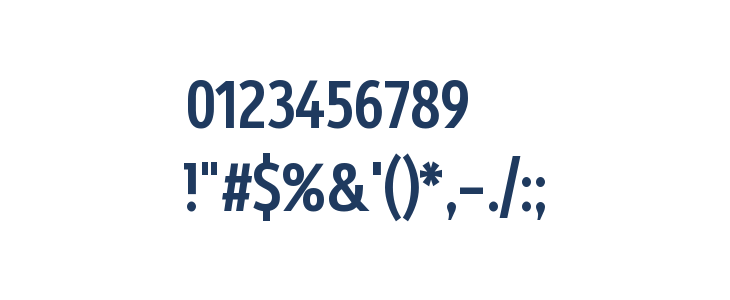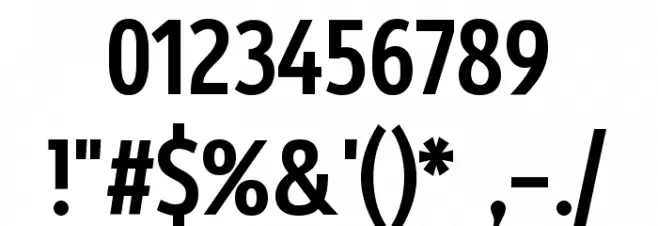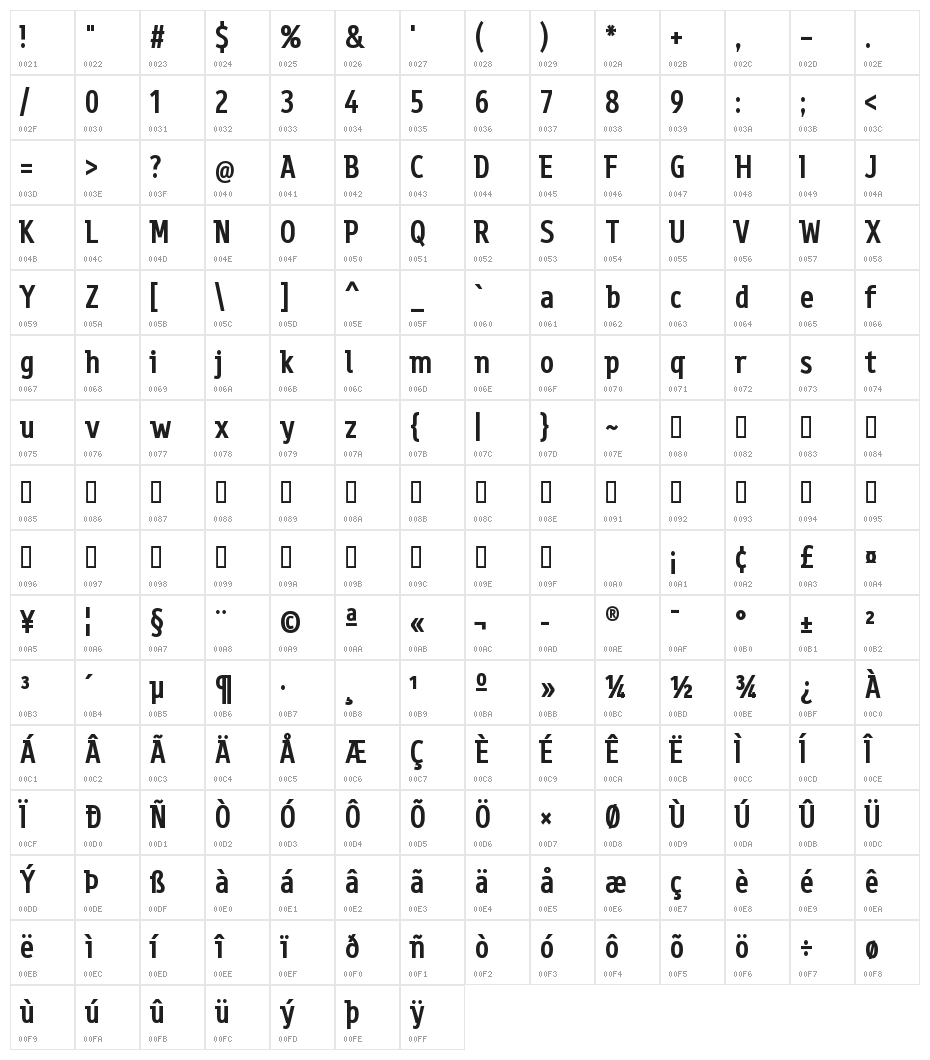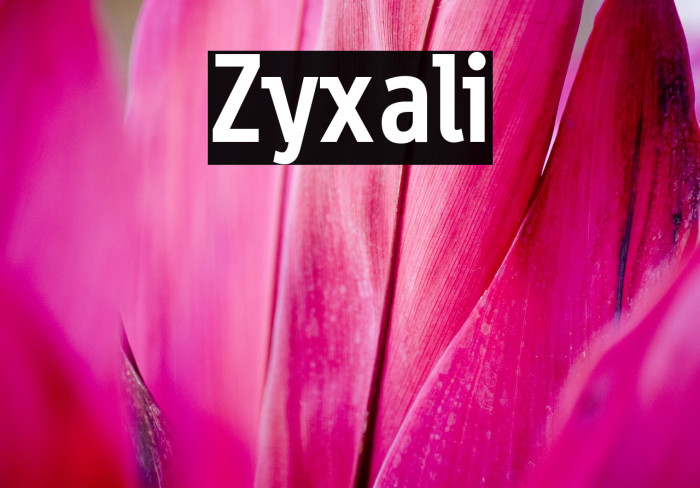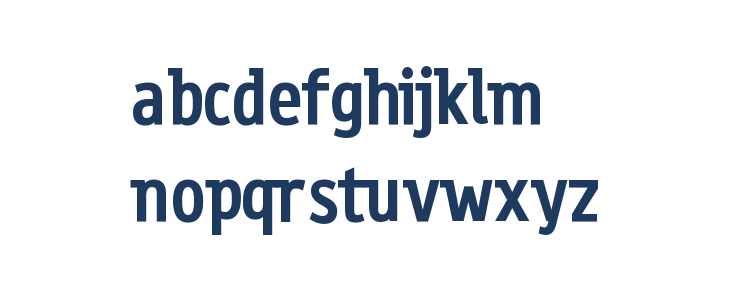
Zyxali Font
Zyxali Description
This font features a bold and modern sans-serif design, characterized by clean lines and a strong presence. The uppercase letters are uniform in height, providing a sense of stability and balance. The lowercase letters maintain a consistent style with slightly rounded edges, enhancing readability. Numerals are clear and distinct, making them suitable for various applications. The special characters are well-defined, ensuring versatility in design projects. Overall, this font exudes a contemporary feel, making it ideal for digital and print media.
| Use Case | Headlines, Logos, Advertising |
| Proposed Projects | Ideal for branding, advertising, digital media, and editorial design. |